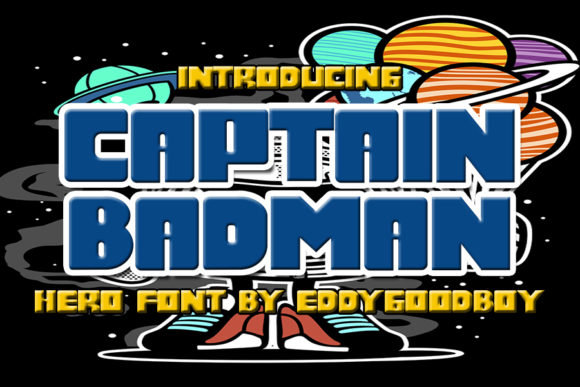
Introducing Captain Badman Font: The Ultimate Display Font for Creative Projects
Are you tired of using the same old fonts for your creative projects? Do you want to add a touch of personality and whimsy to your designs? Look no further than Captain Badman Font, a fun and chunky lettered display font that’s sure to elevate your font library.
What is Captain Badman Font?
Captain Badman Font is a unique and eye-catching display font that’s perfect for a wide range of creative projects. Its chunky letters and playful vibe make it an excellent choice for designers, crafters, and anyone looking to add some personality to their work. Whether you’re designing a logo, creating a social media graphic, or crafting a handmade project, Captain Badman Font is sure to make a statement.
Key Features of Captain Badman Font
- Fun and playful vibe: Captain Badman Font has a lighthearted and carefree feel that’s perfect for projects that require a bit of whimsy.
- Chunky letters: The font’s bold and chunky letters make it easy to read and add a touch of drama to your designs.
- Versatile: Captain Badman Font can be used for a wide range of projects, from logos and branding to social media graphics and handmade crafts.
- Easily readable: Despite its bold and chunky design, Captain Badman Font is surprisingly easy to read, making it perfect for headlines, titles, and short phrases.
Who is Captain Badman Font for?
Captain Badman Font is perfect for a variety of creative professionals and hobbyists, including:
- Graphic designers: Looking for a unique and eye-catching font to add to their library.
- Social media influencers: Wanting to create engaging and shareable content that stands out from the crowd.
- Crafters and makers: Seeking a fun and playful font to use on handmade projects, such as signs, banners, and iron-on designs.
- Small business owners: Looking for a bold and attention-grabbing font to use on their branding and marketing materials.
How to Use Captain Badman Font
Captain Badman Font is incredibly easy to use and can be incorporated into a wide range of creative projects. Here are a few ideas to get you started:
- Logos and branding: Use Captain Badman Font as a bold and eye-catching logo or add it to your brand’s typography for a playful touch.
- Social media graphics: Create engaging and shareable social media graphics using Captain Badman Font to add a pop of personality to your posts.
- Handmade projects: Use Captain Badman Font on handmade projects, such as signs, banners, and iron-on designs, to add a fun and playful touch.
- Headlines and titles: Use Captain Badman Font to add a bold and eye-catching headline or title to your designs.
Why Choose Captain Badman Font?
With so many fonts to choose from, why should you choose Captain Badman Font? Here are just a few reasons:
- Unique and eye-catching: Captain Badman Font is a one-of-a-kind font that’s sure to grab attention and make your designs stand out.
- Versatile: Captain Badman Font can be used for a wide range of creative projects, making it an excellent addition to your font library.
- Easily readable: Despite its bold and chunky design, Captain Badman Font is surprisingly easy to read, making it perfect for headlines, titles, and short phrases.